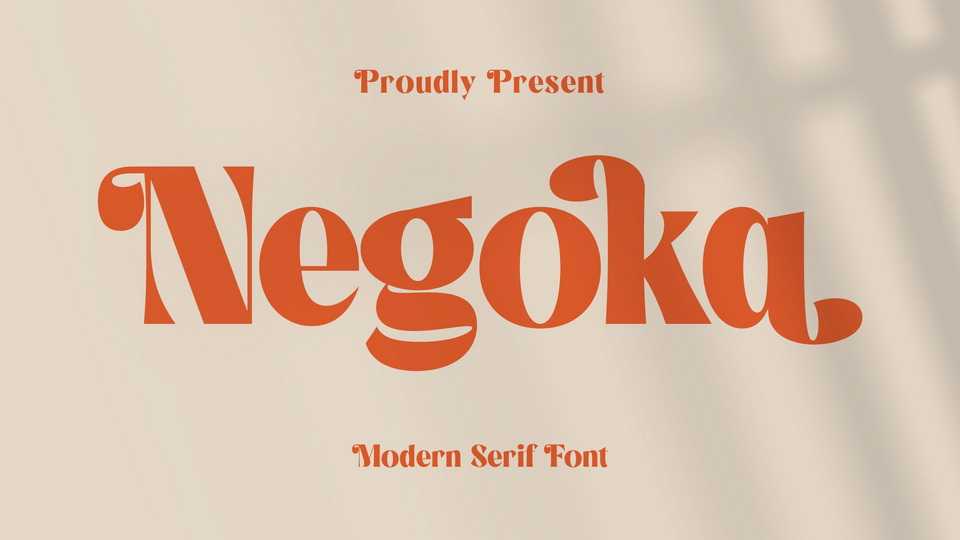
Download Negoka font, a modern high contrast serif typeface that has own unique style and sophisticated look. Negoka font is perfect for an elegant and luxury logo, book or movie title design, fashion brand, magazine, clothes, lettering, quotes, and so much more.